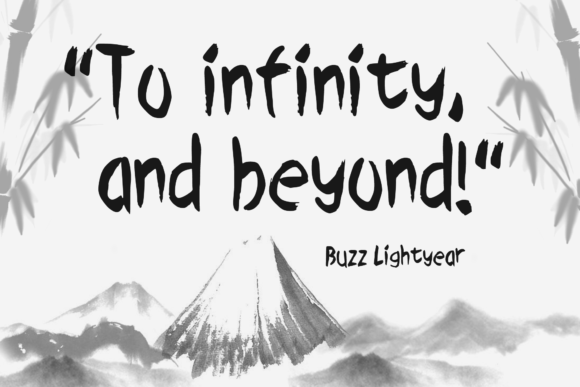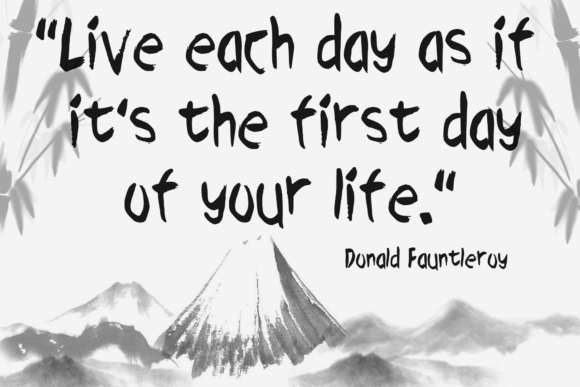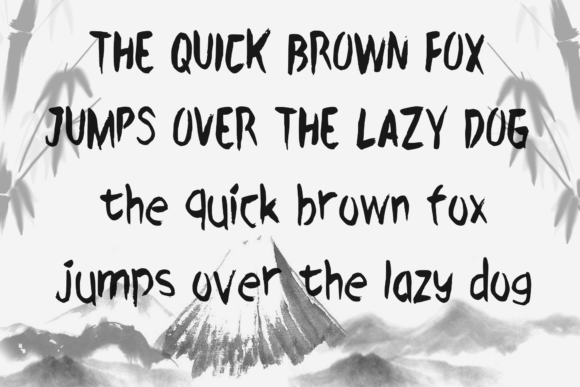
Introduction to Modern Sumi Font
Modern Sumi is a fun and quirky handwritten font inspired by ancient Asian writing.
Add it to your crafty ideas and you will love the results .
Key Features of Modern Sumi Font
Why Choose Modern Sumi Font?
Modern Sumi Font offers exceptional quality and versatility, making it a valuable addition to your design toolkit. Whether you’re creating for personal projects or commercial use, Modern Sumi Font delivers professional results.